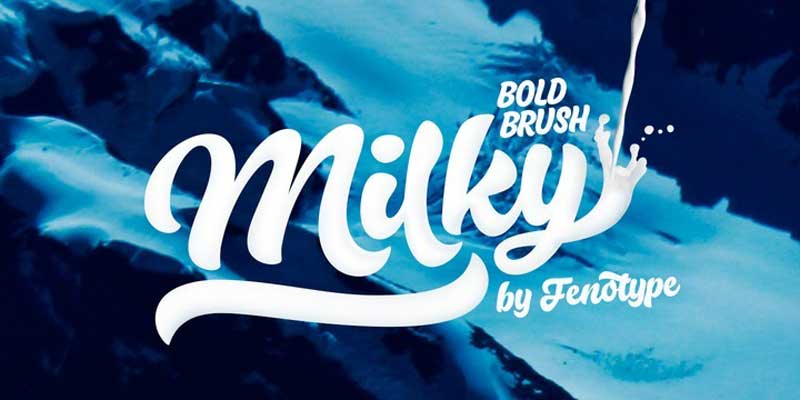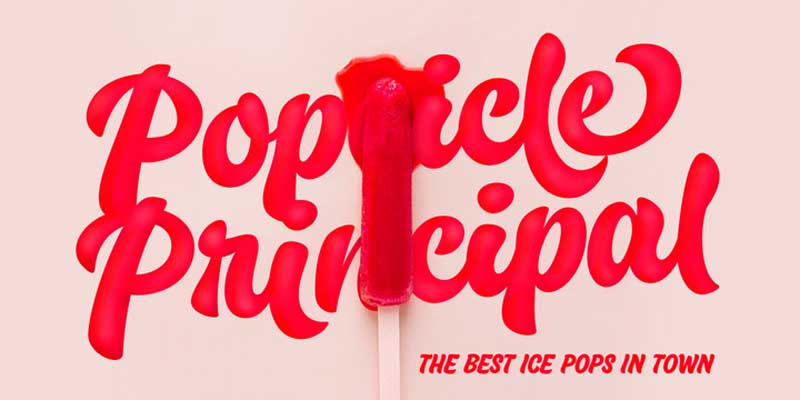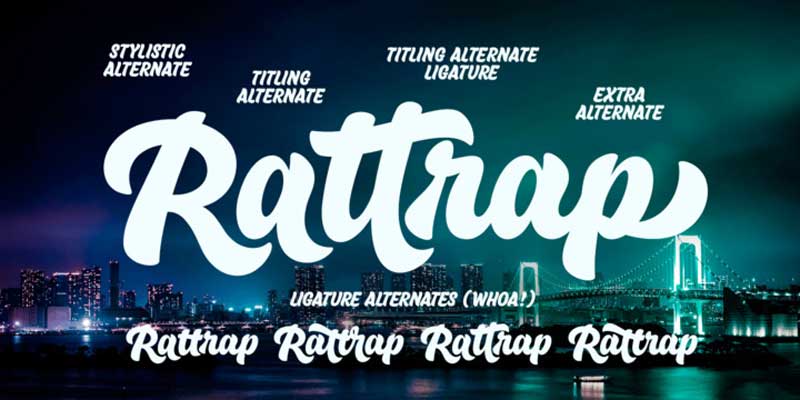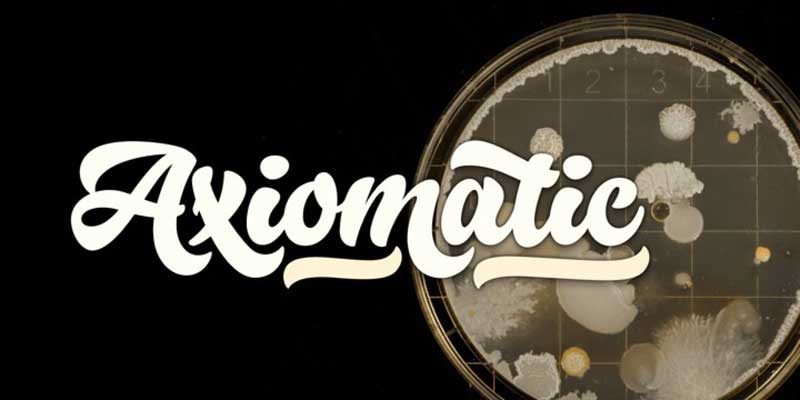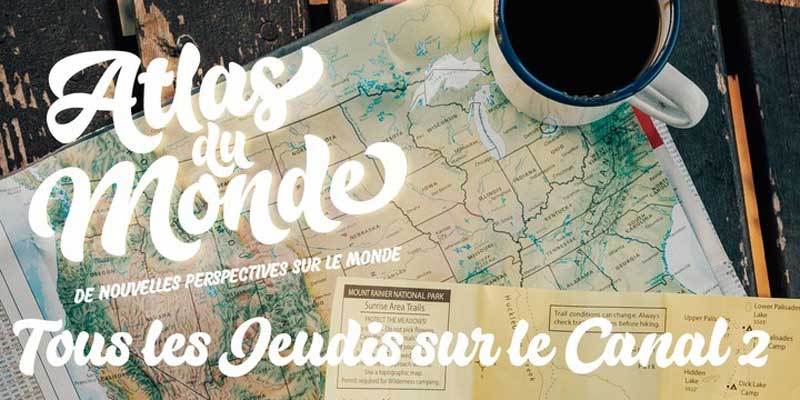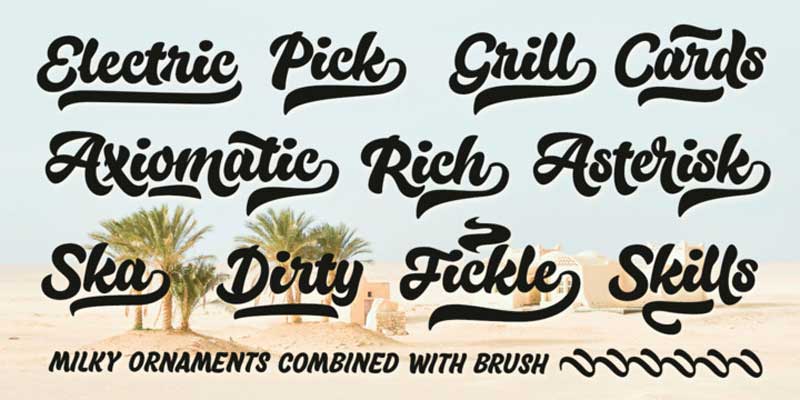
Milky Font Family
Milky is a brisk Brush Script with smooth and bold characters. Milky is both legible and characteristic. It’s strong and friendly, perfect for logotypes, packaging and other branding use.
In addition to Milky Brush, Milky’s family contains Milky Casuals which is an all caps sign painting style casuals drawn with the same proportions as Milky Brush. On top of that, there’s Milky Ornaments which contains ending swashes designed to be used with the Brush, and a selection of bold brush strokes with the Milky signature style to complete your designs.